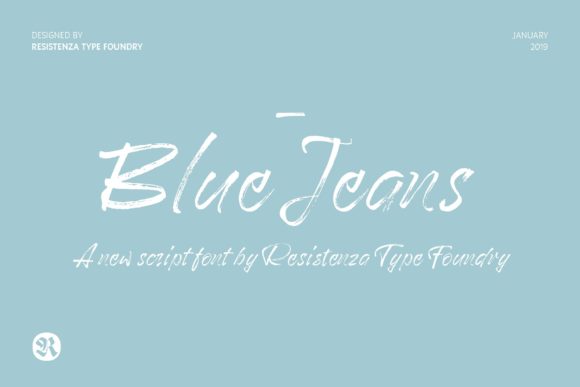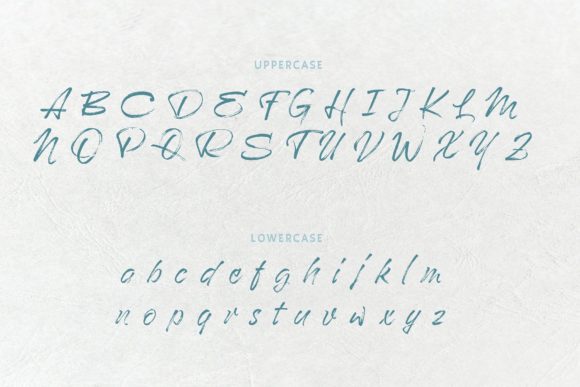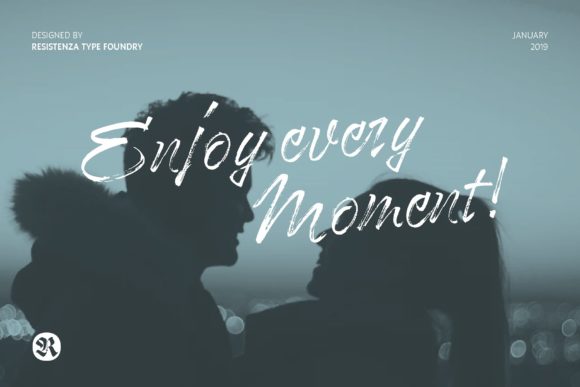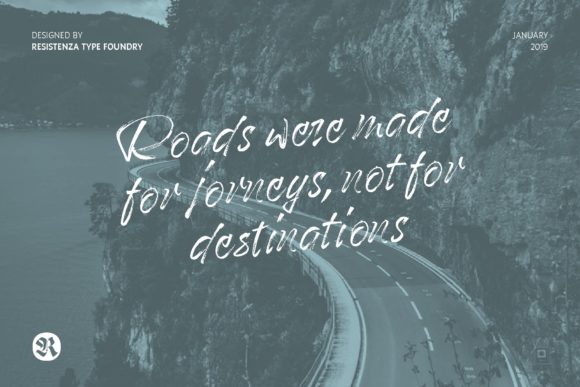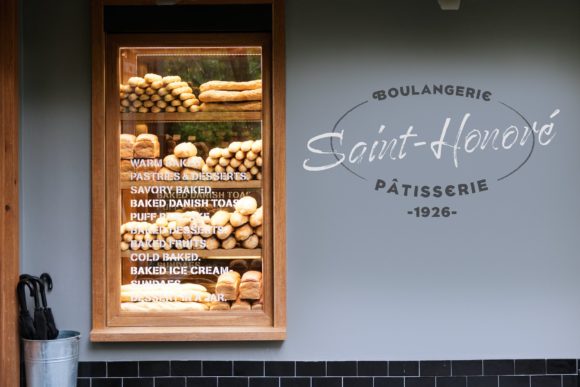
Blue Jeans Font
The Blue Jeans is a casually and quickly written brush script. It includes two sets of lower cases to give some variation and a more natural look to your texts. It also includes a bunch of stylistic alternates that make your texts and designs even more appealing.